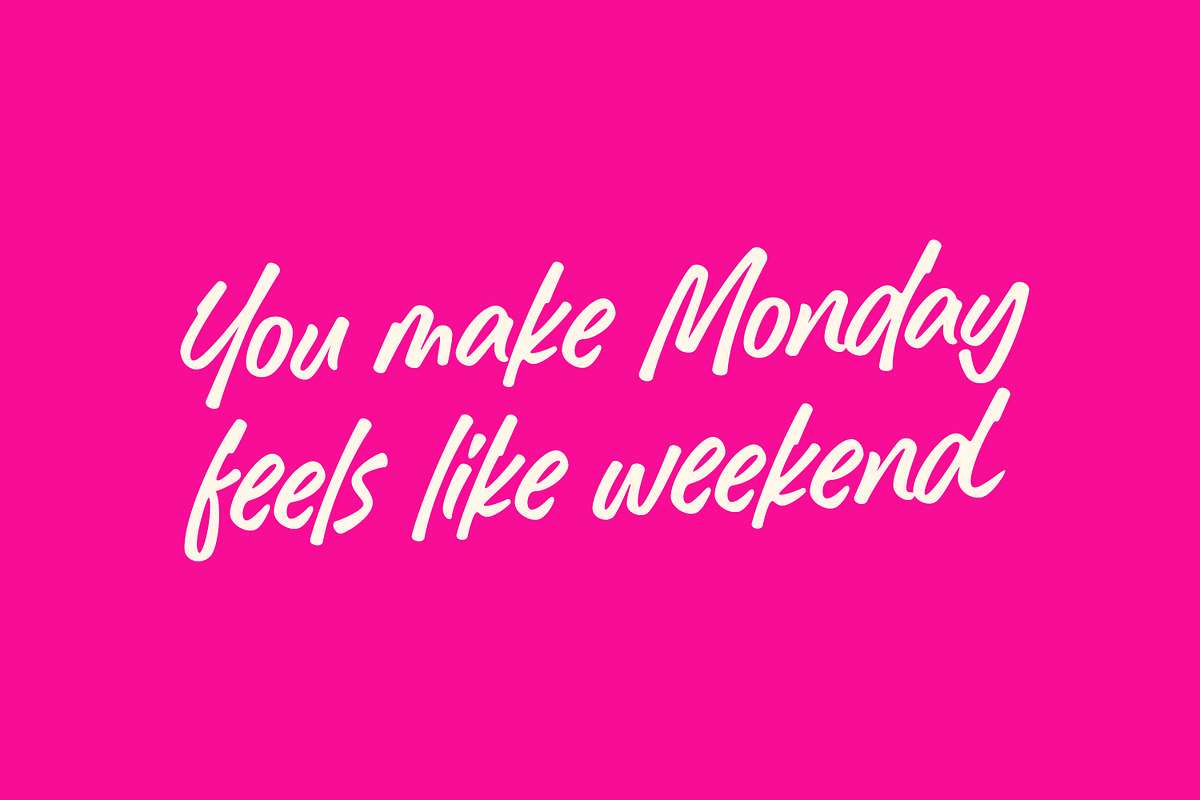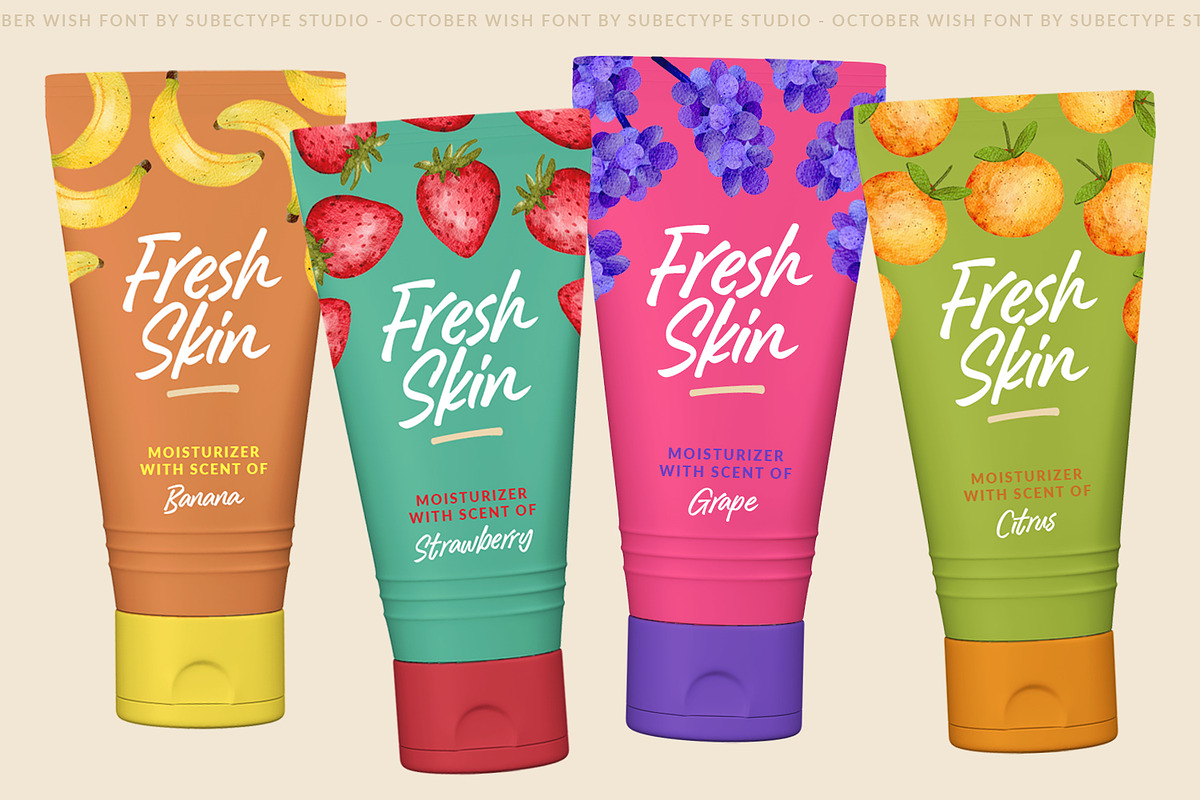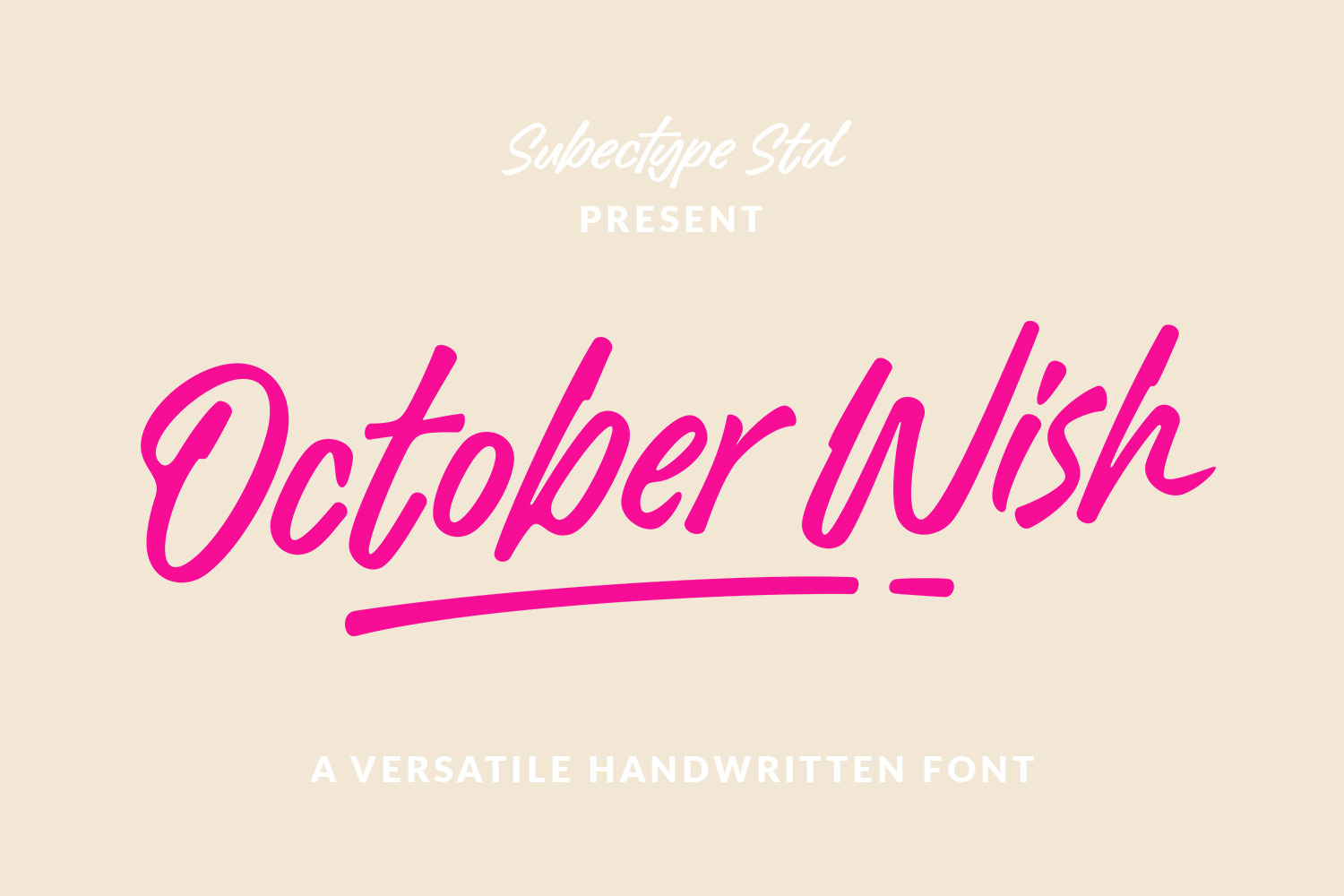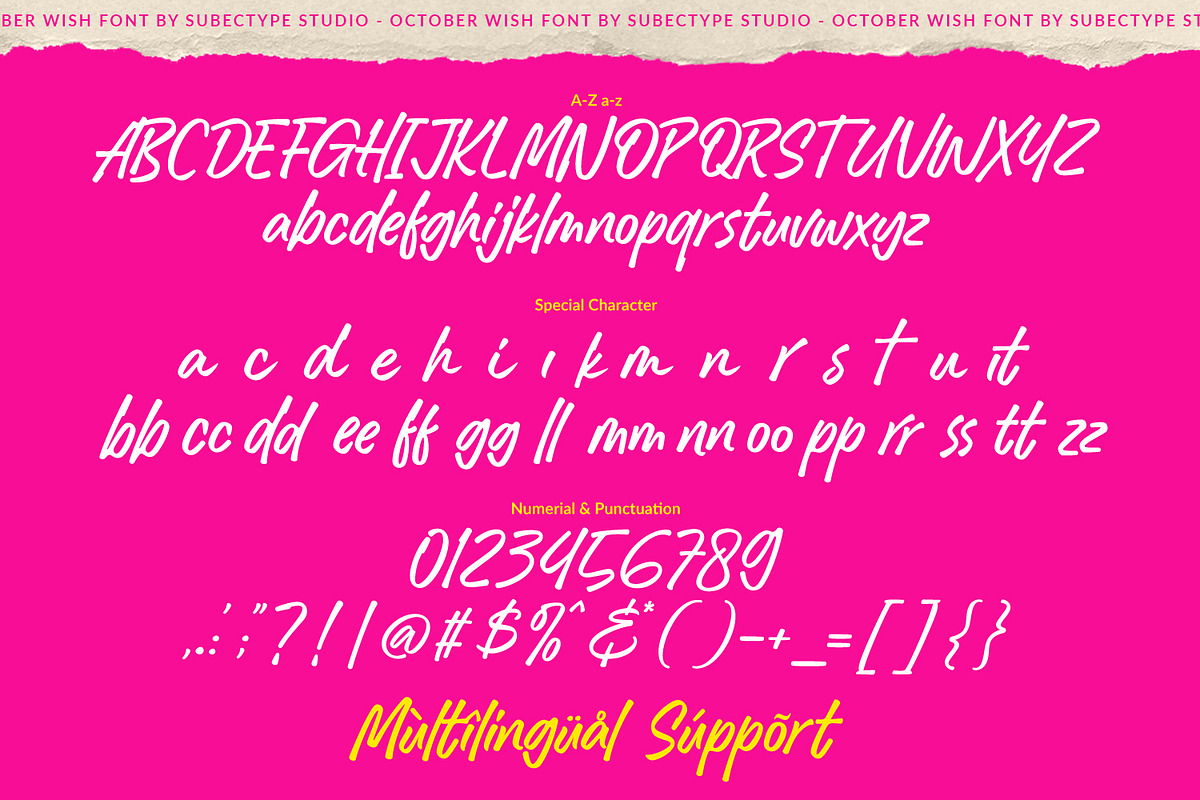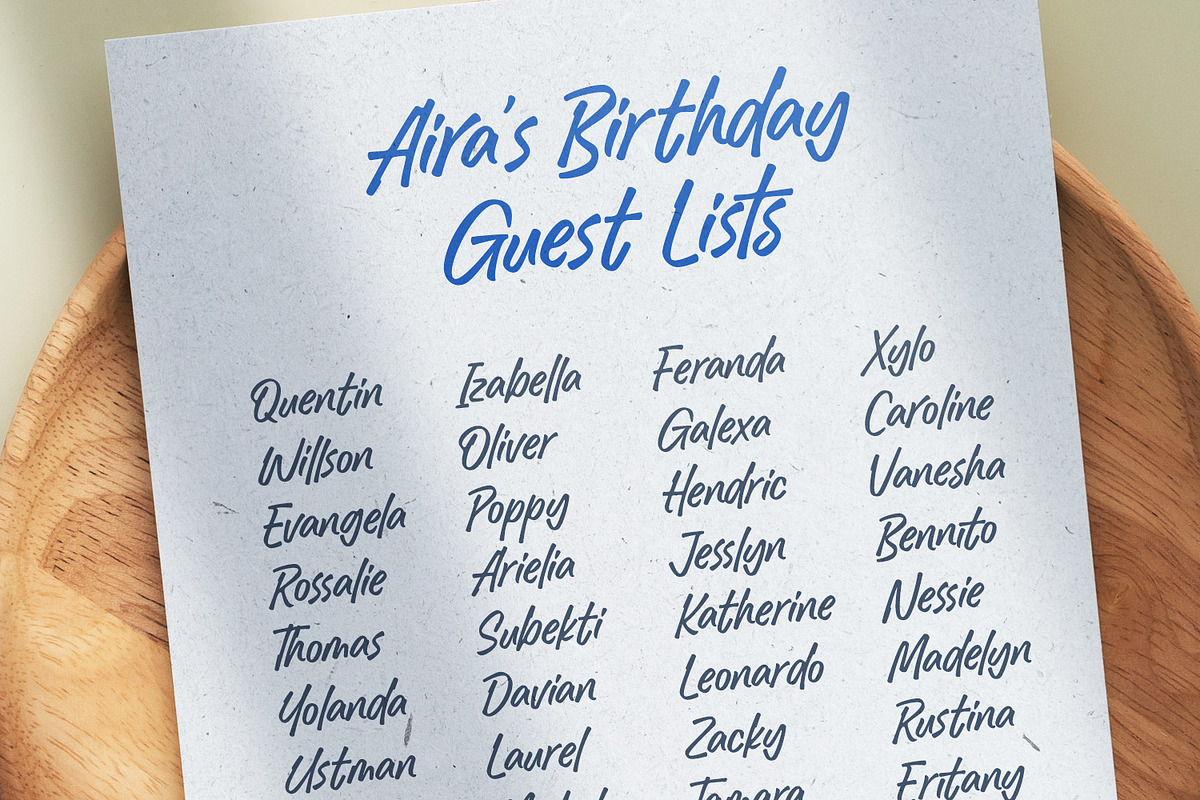
October Wish - Handwritten Font
October Wish is a casual handwritten font with bold handwriting style. Each stroke and curve of this font is unique charm that effortlessly enhances any project, from invitations to digital designs. Adding an authentic touch that resonates across diverse themes and mediums. Elevate your creations and evoke a sense of artful individuality as you harness the power of these versatile handwritten fonts.
This is a great font. I purchased it for a branding project. The client loves how warm and approachable the font is. My favorite part about the style is that it's a great intersection between a casual script and a marker font. There's not a lot of fonts out there that give the effect of a script while the letters do not connect. I recommend this font.